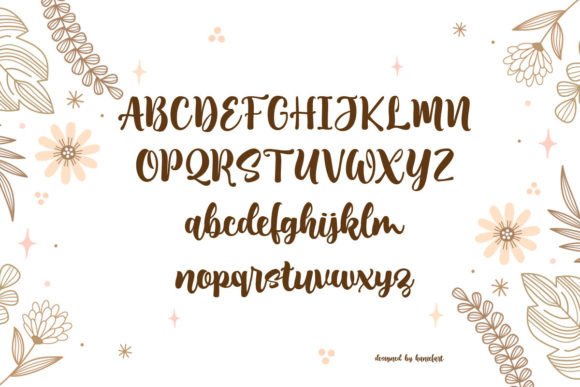
Alfitera Font: Elevate Your Creations with Elegance and Authenticity
Immerse yourself in the enchanting elegance of Alfitera, a meticulously handcrafted font designed to inject a touch of authenticity into your creative endeavors. Born from the intricate artistry of sign painting and branding, Alfitera offers an entrancing collection of unique characters that add finesse to your masterpiece. This adaptable script typeface effortlessly weaves its way into your diverse projects, gifting a custom-made charisma that will undoubtedly intrigue and impress.
The Artistry Behind Alfitera
Alfitera’s roots lie in the traditional art of sign painting and branding, where every stroke and curve was meticulously crafted to convey a message with elegance and precision. This font is a testament to the skill and craftsmanship of its creators, who have poured their hearts into designing a typeface that embodies the essence of handcrafted artistry.
The attention to detail in Alfitera is evident in its intricate characters, each one uniquely crafted to add a touch of personality to your creations. Whether you’re working on a logo, invitation card, or magazine, Alfitera’s distinctive charm is sure to elevate your project and leave a lasting impression.
Unleashing Creative Potential with Alfitera
Alfitera is more than just a font – it’s a creative tool designed to help you push the boundaries of your imagination. Its adaptable script typeface can be effortlessly integrated into a wide range of projects, from spellbinding invitation cards to stylized magazines, fashion-forward garment patterns, dynamic logos, and irresistible flyers.
With Alfitera, you can add a touch of sophistication and elegance to your creations, making them stand out in a crowded market. Whether you’re a designer, artist, or entrepreneur, Alfitera’s idiosyncratic charm is your ally in creating memorable and impactful designs.
Applications of Alfitera
Alfitera’s versatility makes it an excellent choice for a variety of applications, including:
- Invitation Cards: Add a touch of elegance and sophistication to your invitation cards, making them truly unforgettable.
- Magazines: Stylize your magazine with Alfitera’s unique charm, creating a lasting impression on your readers.
- Fashion-Forward Garment Patterns: Elevate your fashion designs with Alfitera’s distinctive personality, making your garments truly stand out.
- Dynamic Logos: Craft memorable logos that capture the essence of your brand, using Alfitera’s handcrafted charm.
- Irresistible Flyers: Create eye-catching flyers that grab attention and leave a lasting impression, using Alfitera’s adaptable script typeface.
Why Choose Alfitera?
With so many fonts available, why choose Alfitera? Here are just a few reasons why Alfitera stands out:
- Unique Character: Alfitera’s handcrafted characters add a touch of personality to your creations, making them truly unique.
- Adaptable: Alfitera’s script typeface can be effortlessly integrated into a wide range of projects, making it a versatile choice.
- Elegant: Alfitera’s elegant design makes it perfect for projects where sophistication and refinement are key.
- Authentic: Alfitera’s roots in traditional sign painting and branding give it an authentic feel that’s hard to replicate.
In conclusion, Alfitera is a font that offers a unique blend of elegance, authenticity, and adaptability. Its handcrafted characters and script typeface make it perfect for a wide range of creative projects, from invitation cards to logos and flyers. Whether you’re a designer, artist, or entrepreneur, Alfitera’s idiosyncratic charm is sure to elevate your creations and leave a lasting impression.
So why not immerse yourself in the enchanting elegance of Alfitera and discover the creative possibilities it offers? With Alfitera, you can add a touch of sophistication and refinement to your projects, making them truly unforgettable.
- What is Alfitera? Alfitera is a handcrafted script typeface font, born from the intricate artistry of sign painting and branding.
- What makes Alfitera unique? Alfitera’s unique character, adaptability, elegance, and authenticity make it a standout font.
- What projects is Alfitera suitable for? Alfitera is suitable for a wide range of projects, including invitation cards, magazines, fashion-forward garment patterns, dynamic logos, and irresistible flyers.